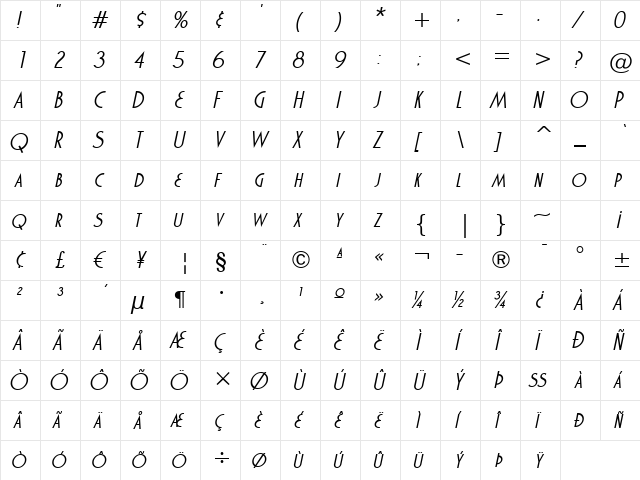
Marquisette BTN Oblique Font Preview
Marquisette BTN Oblique
Design Context for Marquisette BTN Typeface
Marquisette BTN takes a measured approach to typography — its balanced proportions and neutral character make it a reliable workhorse for both digital and print work. Its italic angle brings a sense of urgency and motion to the letterforms.
Pro Tip: Try Marquisette BTN for annotation and caption copy alongside an upright companion — the contrast in angle creates a dynamic but ordered typographic system.